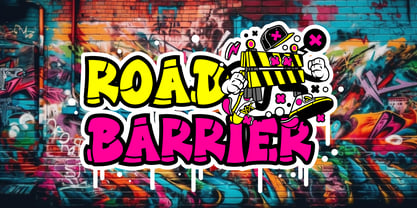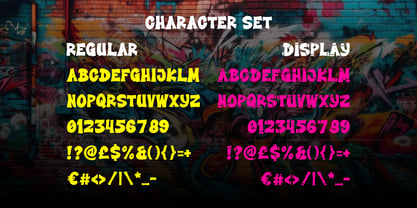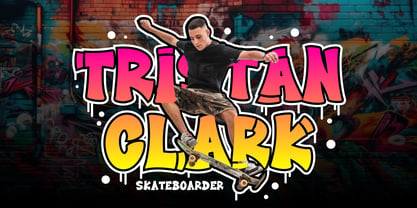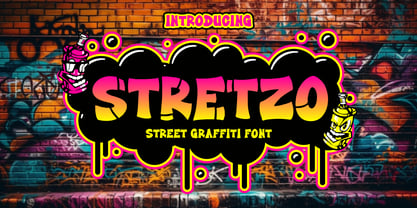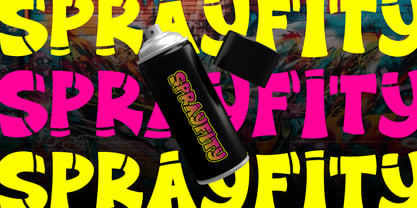
Stretzo
by Shanaf
The Stretzo Font Family was designed by Yesie Erma Yunita and published by Shanaf. Stretzo contains 2 styles and family package options. More about this family
Stretzo Graffiti Font is a bold and energetic typeface that captures the true essence of street culture. With thick strokes, curved edges, and playful cuts, this font reflects the raw character of spray-painted graffiti found on urban walls. Each letter feels hand-drawn, giving designs an authentic street vibe with a professional polish. The font shape enhance its dynamic look, making it highly versatile for posters, skateboard and branding. Its striking presence ensures that every word stands out, demanding attention while still feeling stylish and modern. This font is perfect for projects that need an urban, rebellious edge. From music album covers and event posters to clothing brands and creative packaging, Stretzo Graffiti Font adapts seamlessly. It works beautifully for bold headlines, logo designs, and eye-catching advertisements. With its youthful energy and raw texture, the font becomes an essential tool for designers aiming to capture the punk, hip-hop, and street-inspired aesthetic. Whether you’re working on stickers, book covers, or magazine titles, Stretzo Graffiti Font delivers maximum impact and cultural
Designers: Yesie Erma Yunita
Foundry: Shanaf